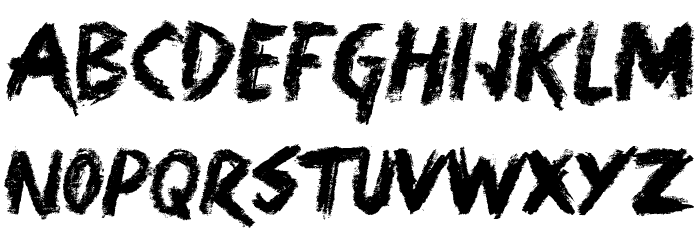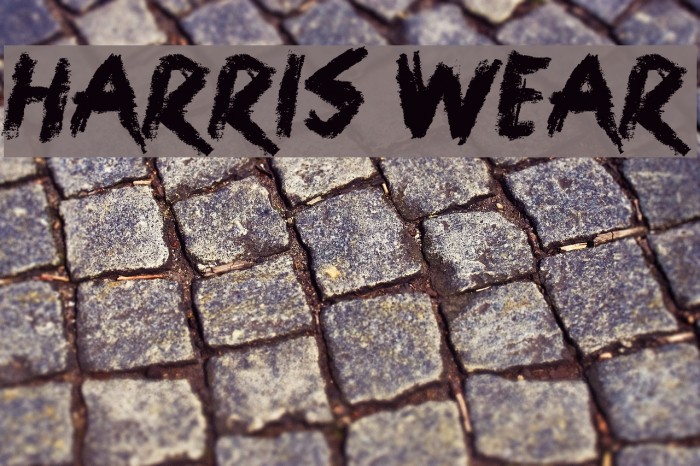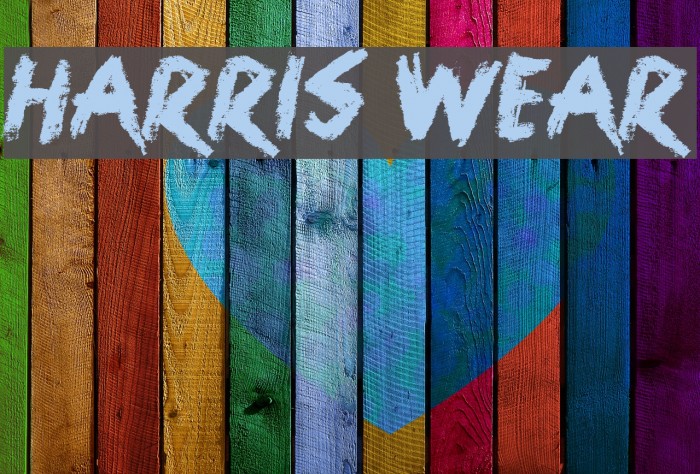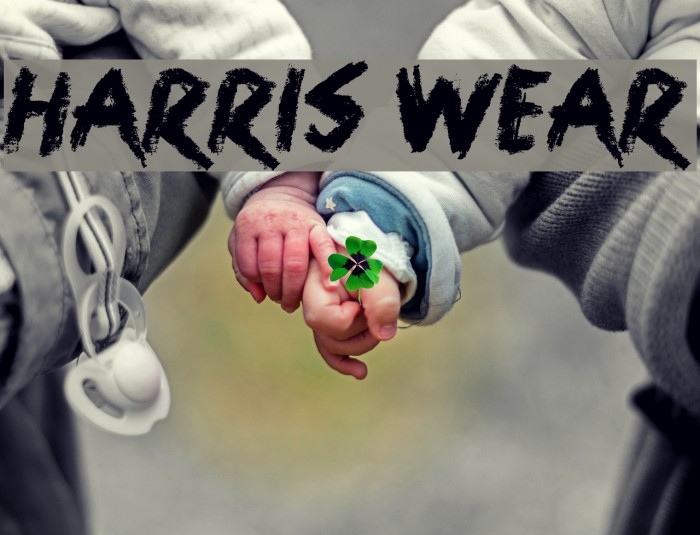
Harris Wear Font
This font features a bold, expressive style with a textured, brush-like appearance. The uppercase letters are dynamic and energetic, conveying a sense of movement and creativity. The lowercase letters maintain this artistic flair, providing a cohesive look throughout the alphabet. The numbers are more traditional, offering a clean and legible contrast to the letters. Special characters are included, maintaining the same brush-like texture, adding to the font's versatility. This font is ideal for projects that require a bold statement or artistic touch, such as posters, branding, or creative headlines.
A bold, brush-textured font with expressive uppercase and lowercase letters.
- Proposed Projects: Ideal for posters, branding, creative headlines, and artistic projects.
- Overall Style: Modern, Artistic